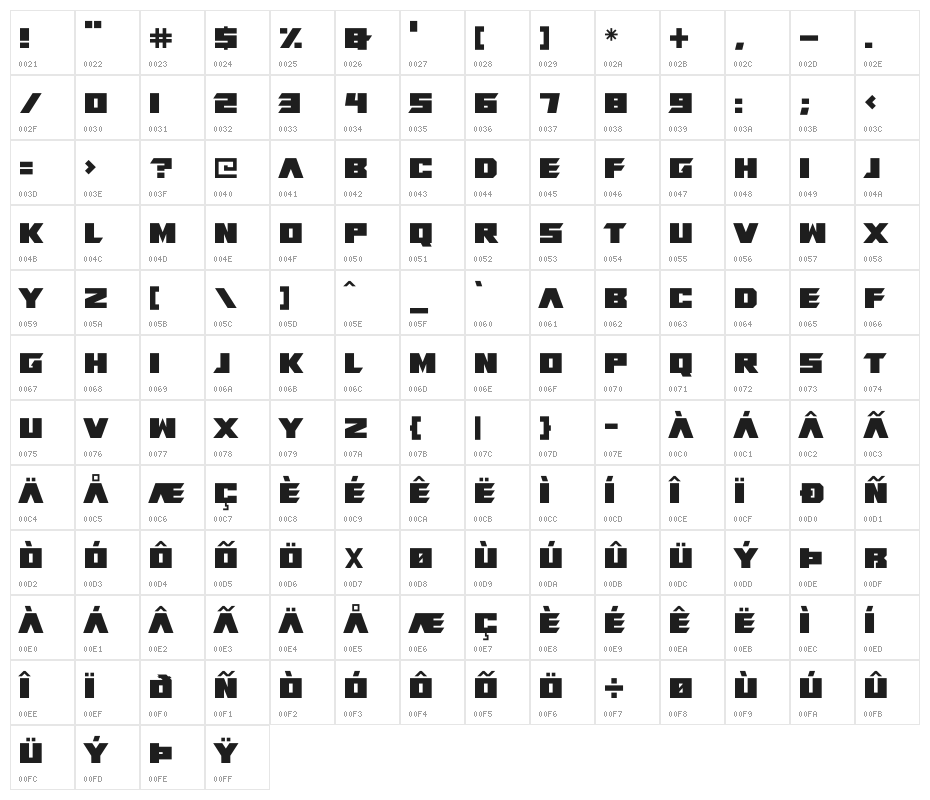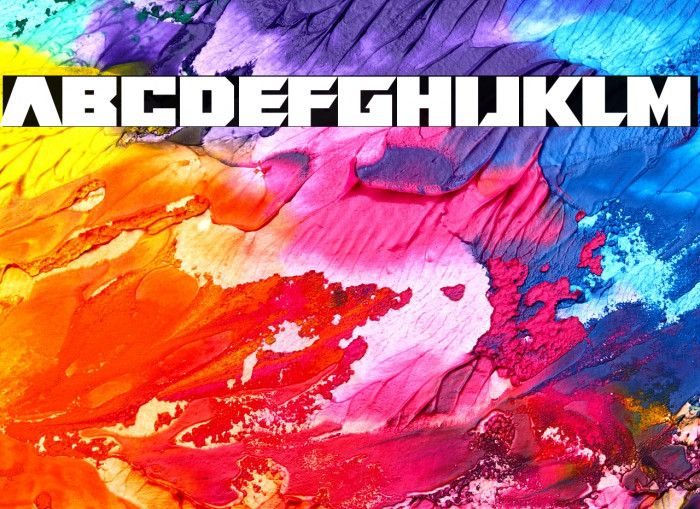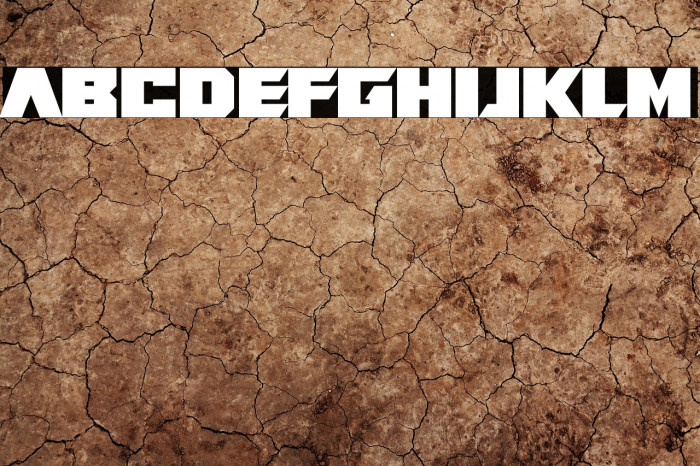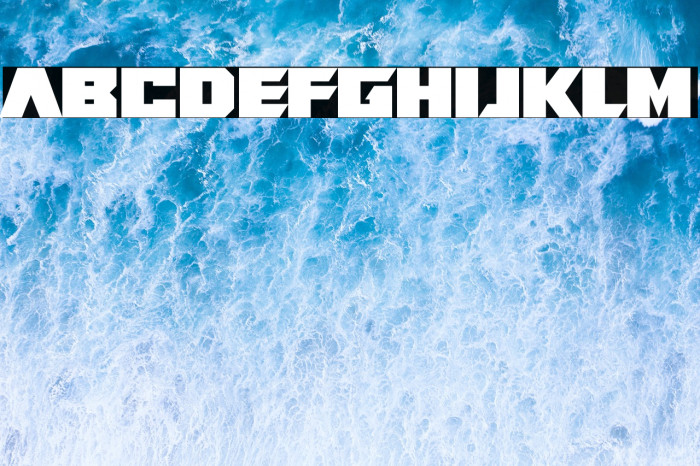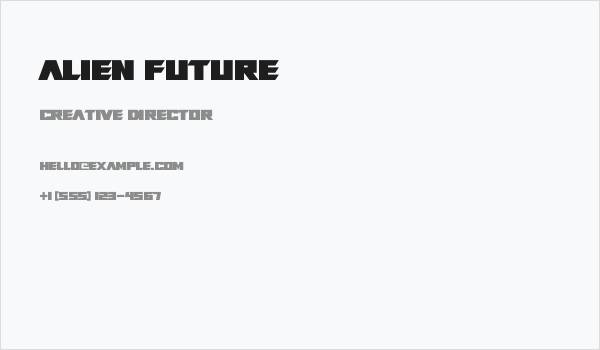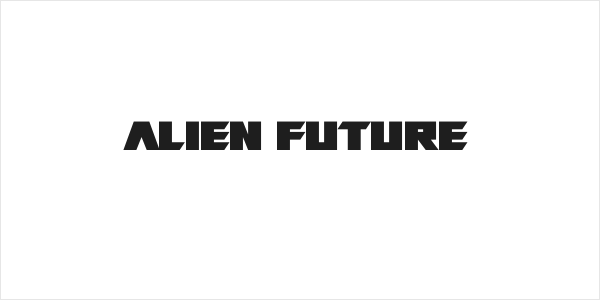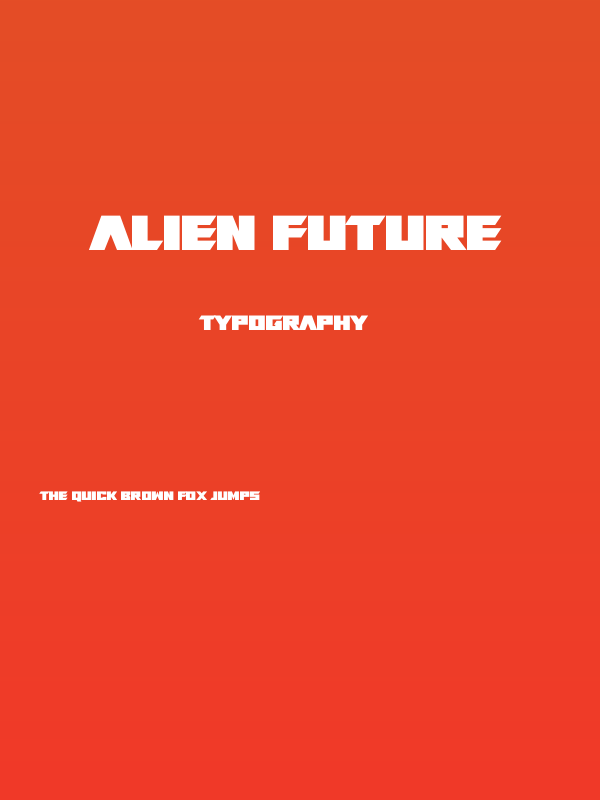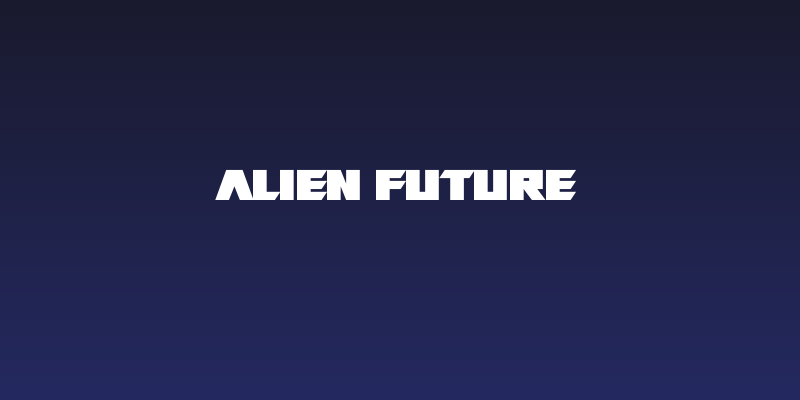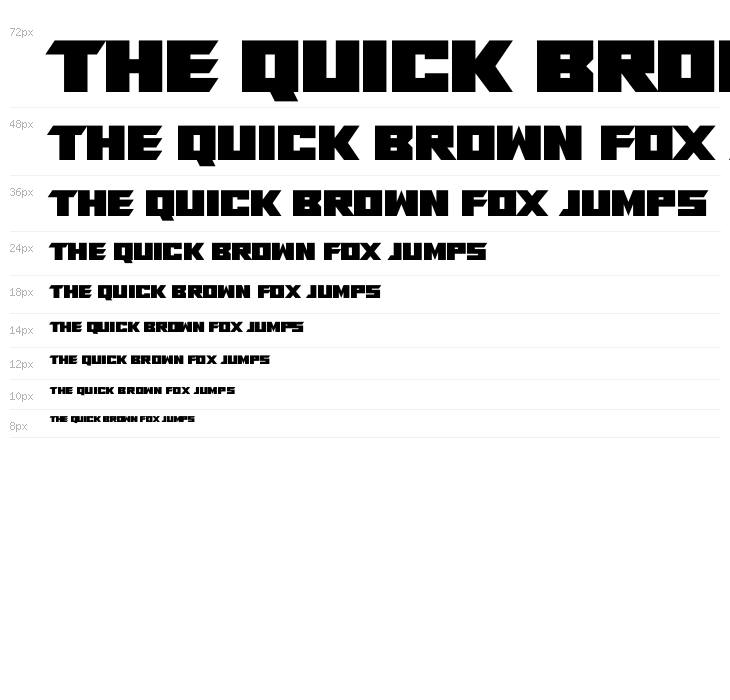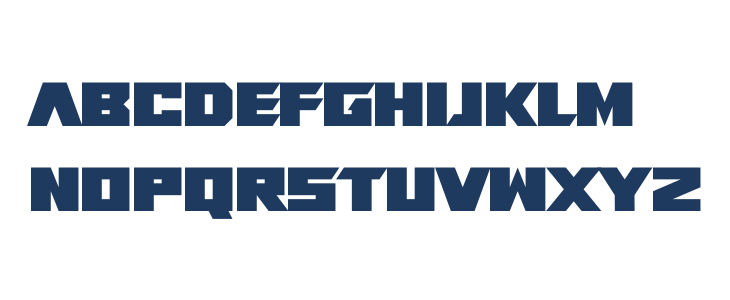
Alien Future Font
Alien Future Description
This font features a bold, futuristic design with sharp angles and geometric shapes. The characters are heavily stylized, giving them a distinct, modern appearance. The uppercase and lowercase letters maintain a consistent style, with a strong emphasis on angular cuts and a blocky structure. The numbers and special characters follow the same design principles, ensuring a cohesive look across all glyphs. This font is ideal for projects that require a striking, contemporary aesthetic, such as sci-fi themed designs or technology-related branding.
| Proposed Projects | Ideal for sci-fi themed designs, technology branding, video game titles, and futuristic posters. |